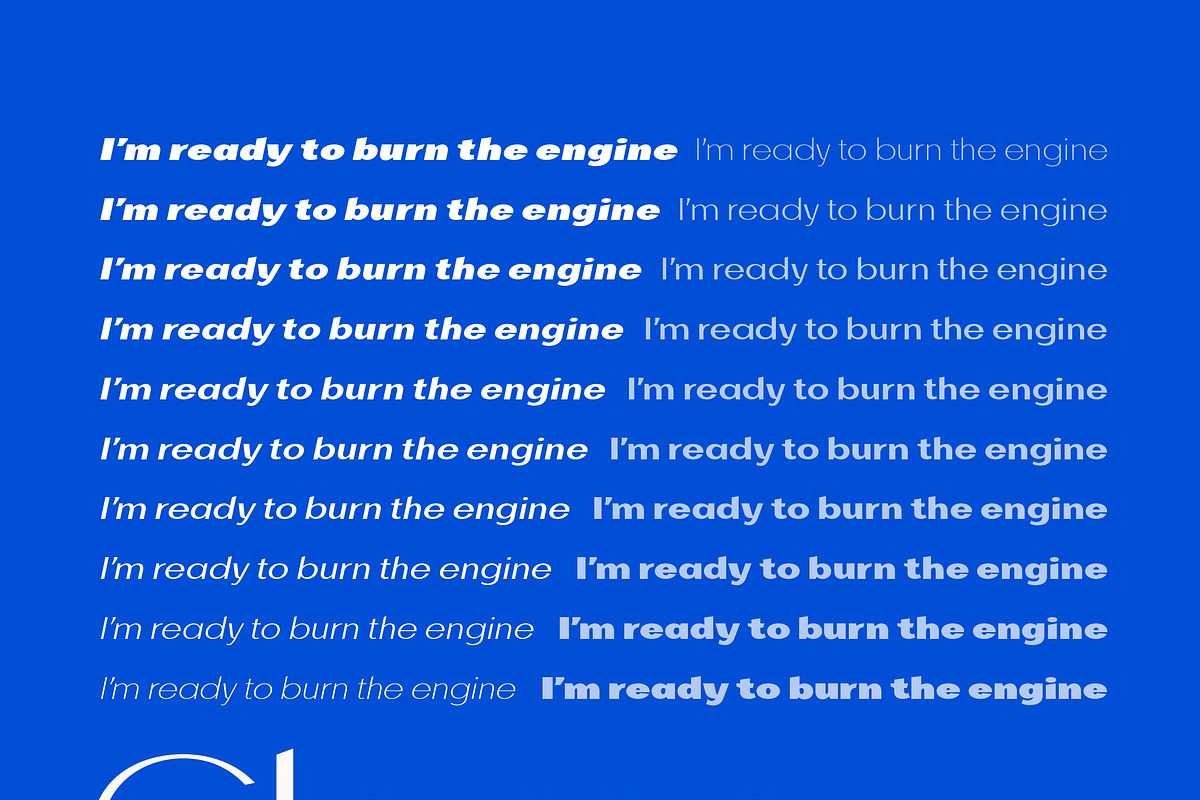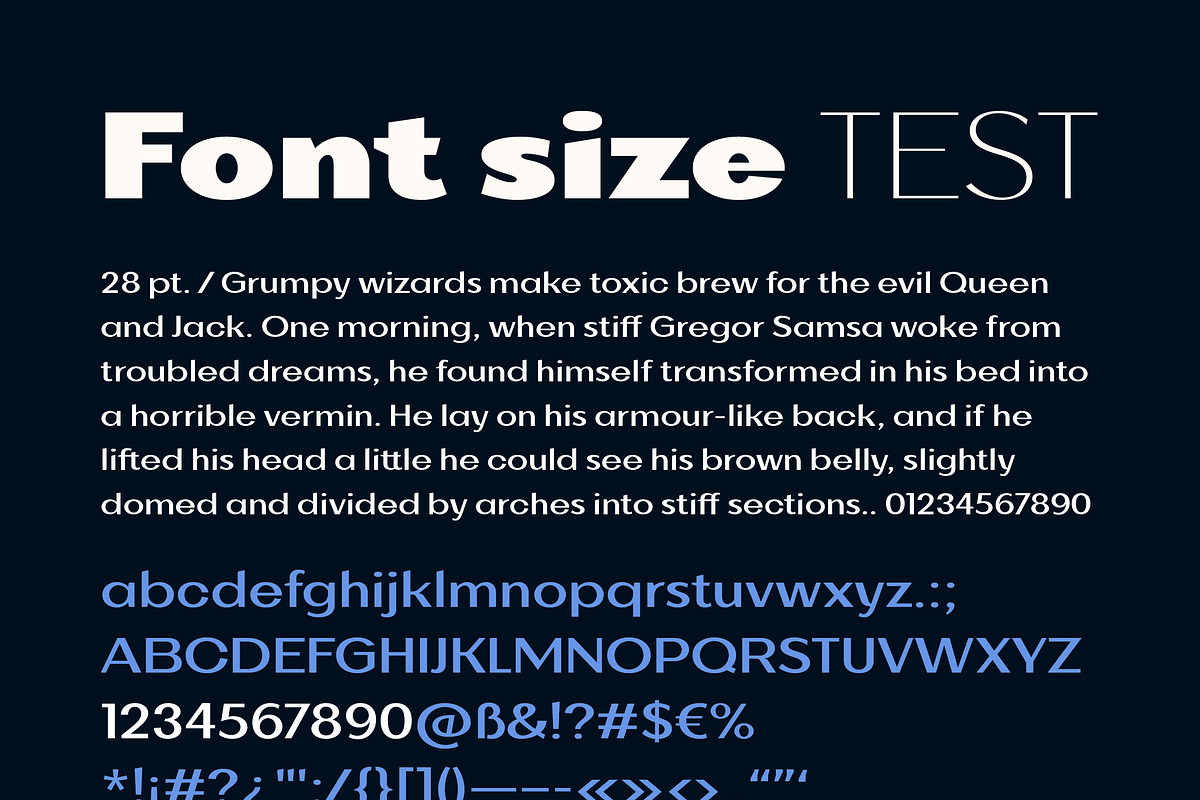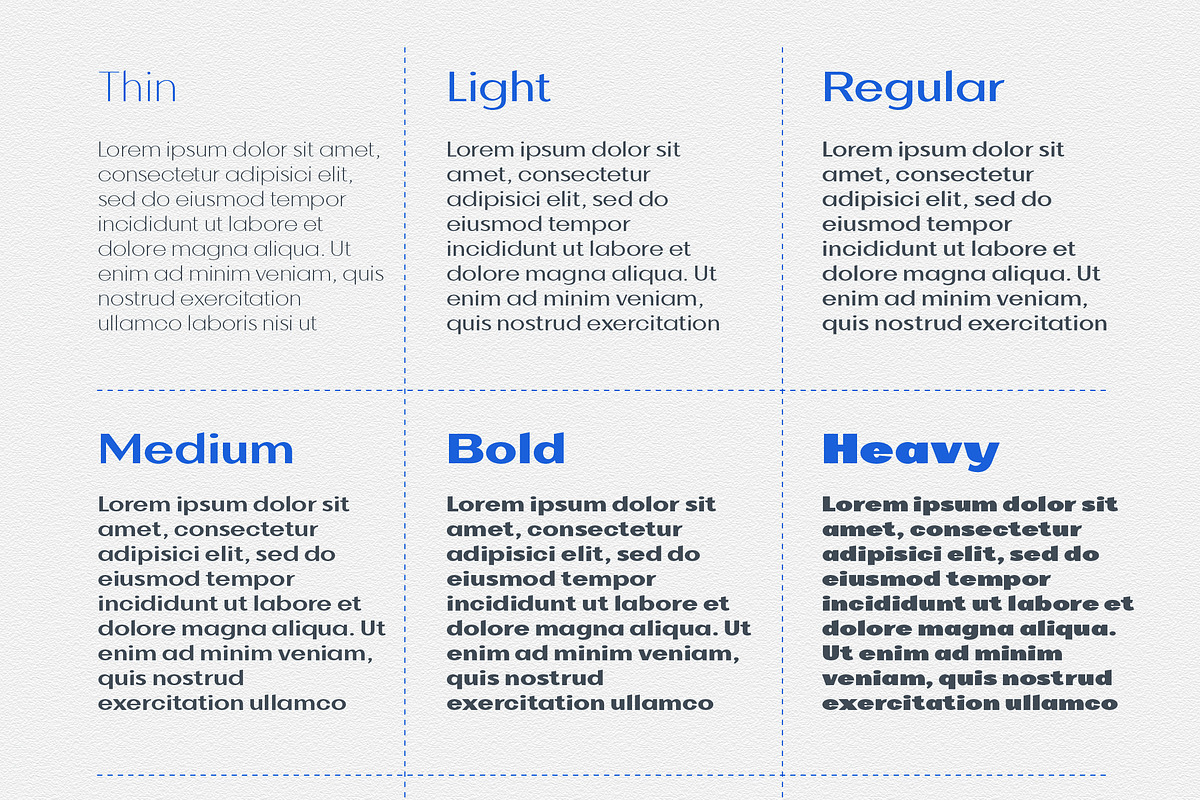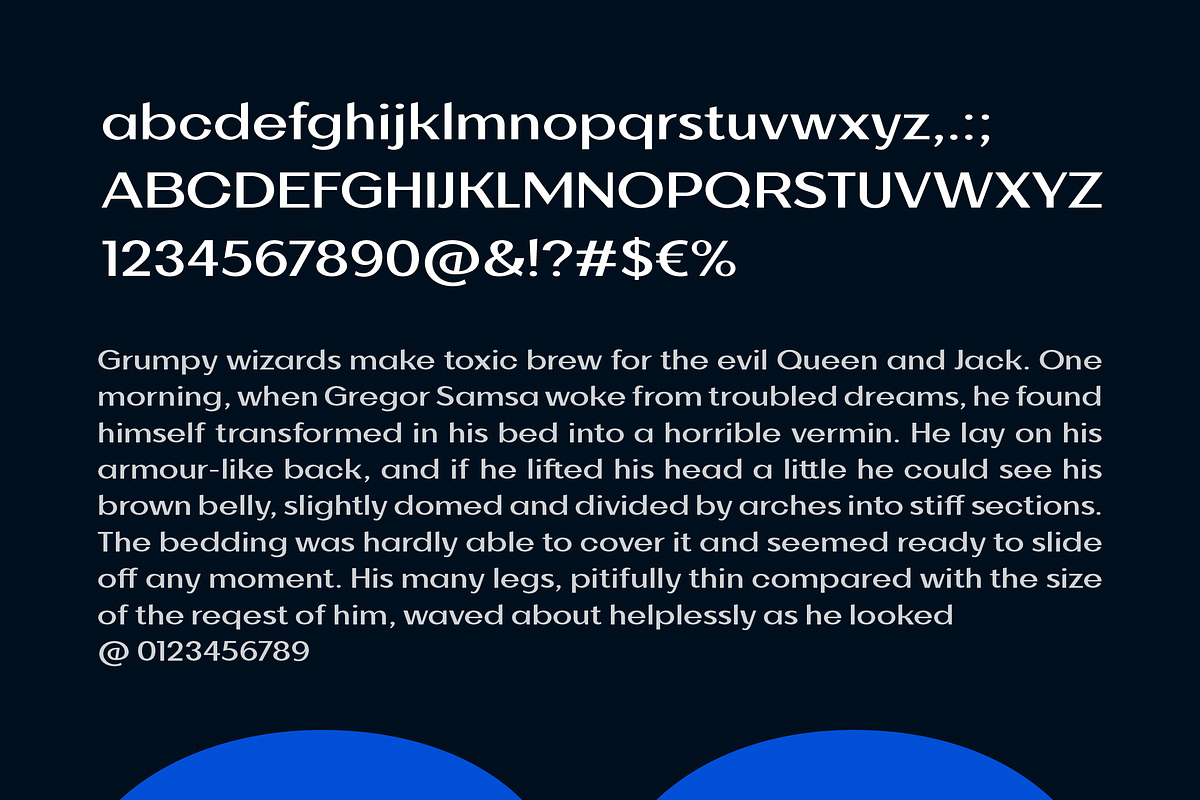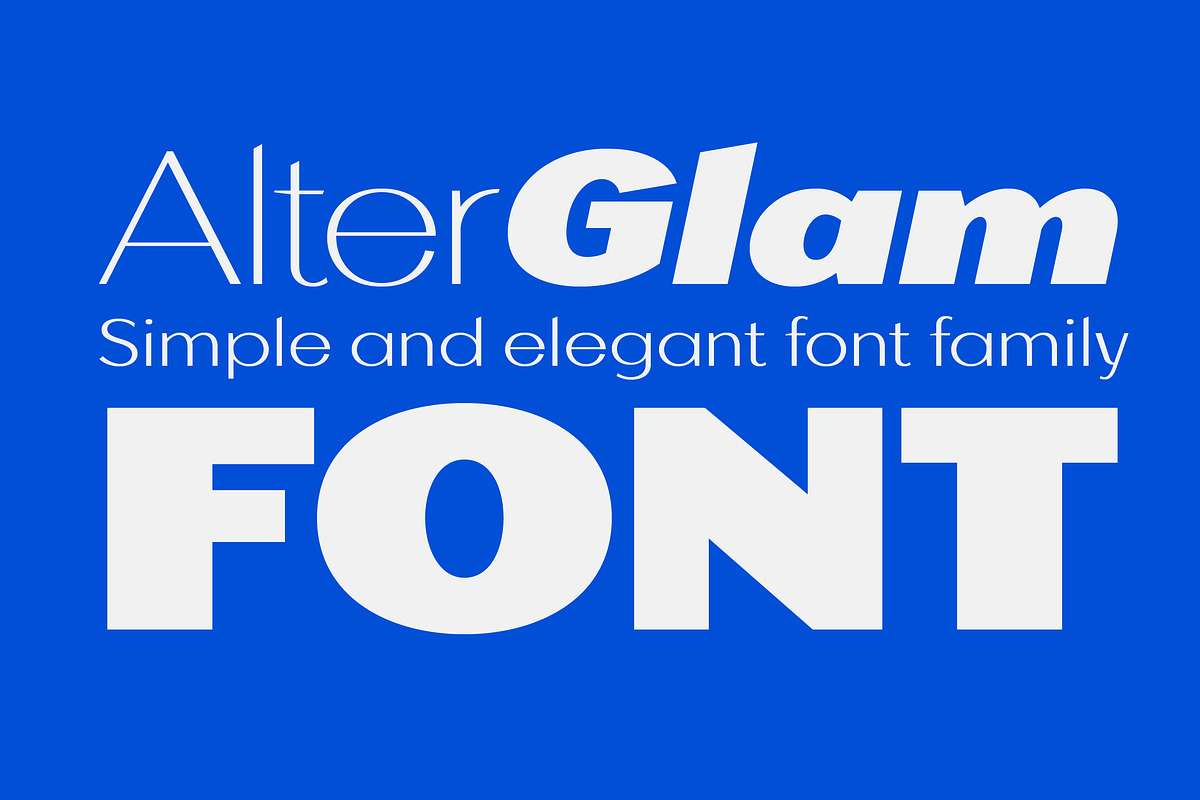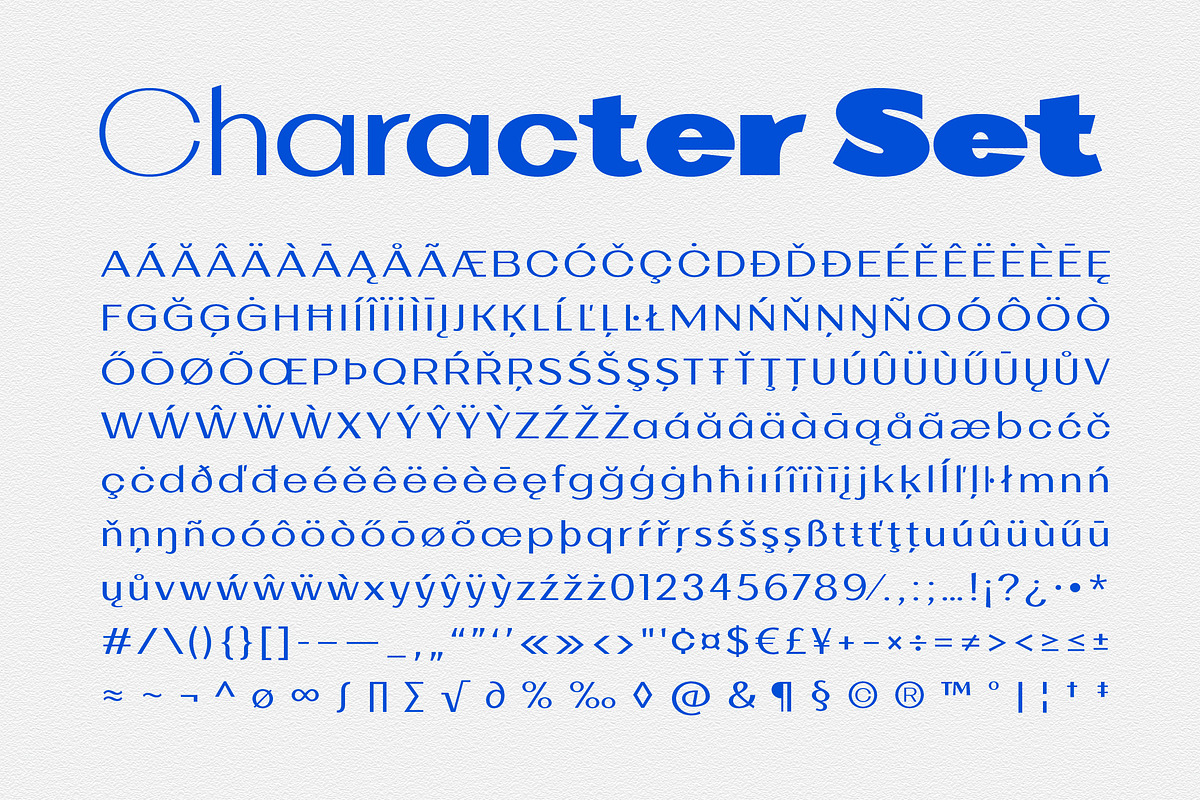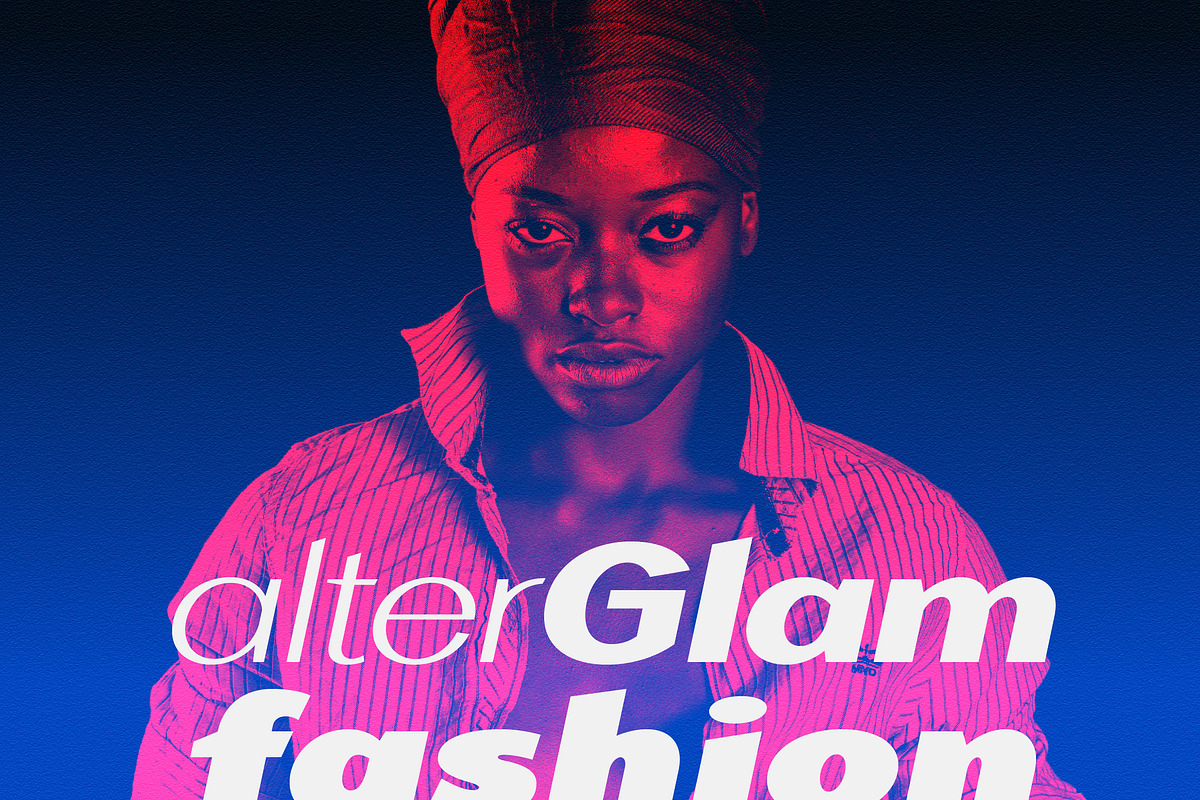
AlterGlam Elegant Extended Font
Simple and stylish font for well-readable inscriptions. Ideal for both decorative headers and texts.
Alterglam is one of my all time favorite fonts, although I didn't think so at first. The font appeared as a modification of my other default font. But over time, the font turned into an independent work. Moreover, the font began to live its own life and constantly demanded attention. So at the same time the Alterglam font is the most thoughtful and polished font in my collection. It is my pleasure to present this wonderful font set for exquisite designs.
In the set there are 20 font sizes, which provides a rich typography.
If you need a strict, but at the same time artistic font, Alterglam is the font of your choice.
Font supports Latin and most European language characters.
AlterGlam Elegant Extended Font by popskraft fits naturally into Branding, posters, packaging, typography.